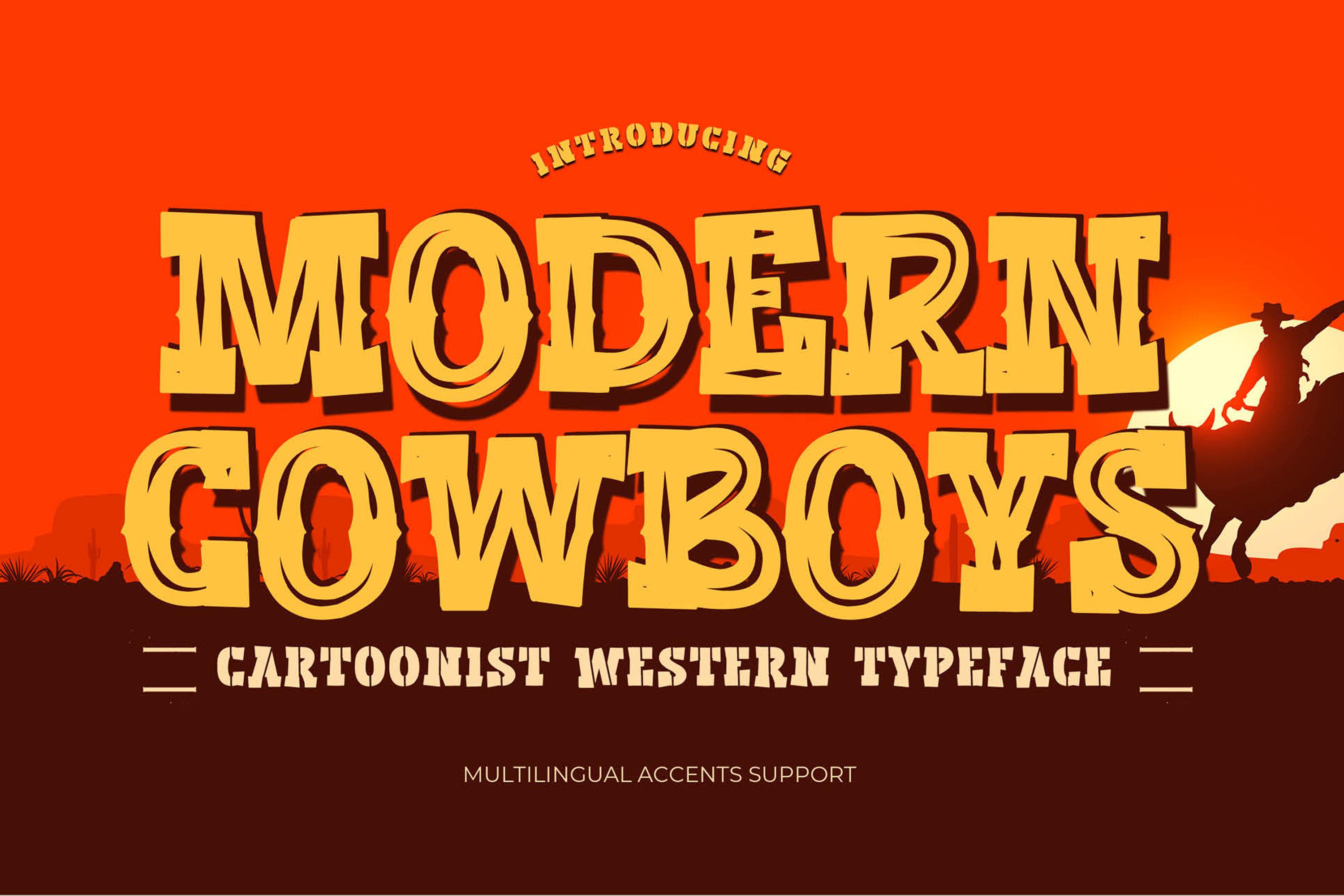
Modern Cowboys Font Description
Modern Cowboys is a cartoonist serif font inspired by vintage western products. This typeface is great for your most creative projects including logos, printed quotes, invitations, cards, product packaging, headers, posters, etc.